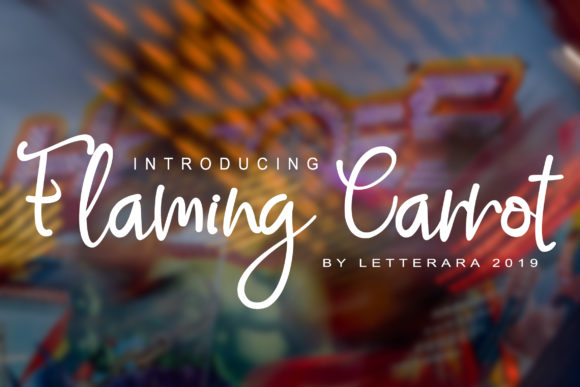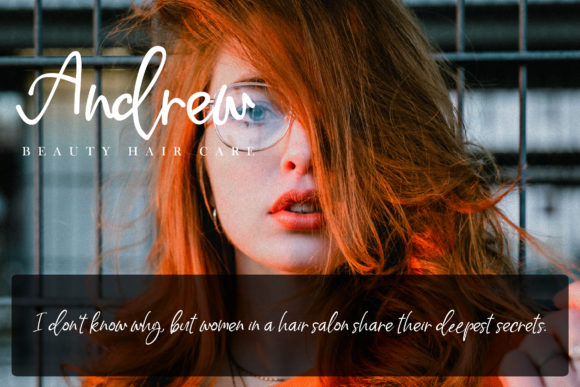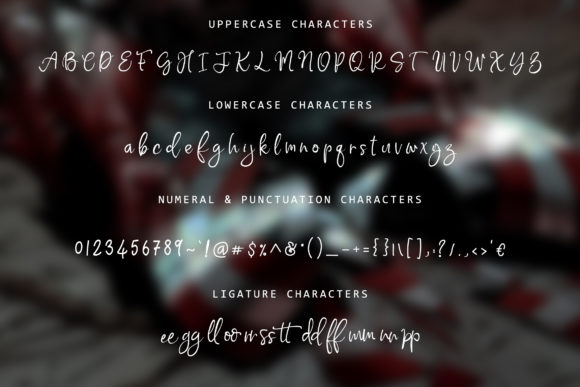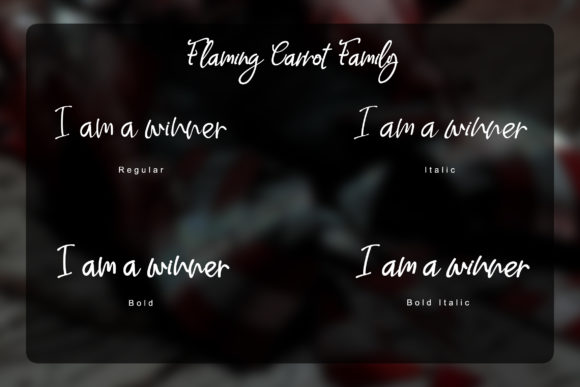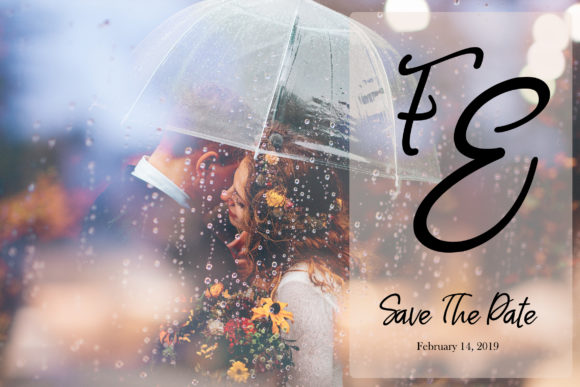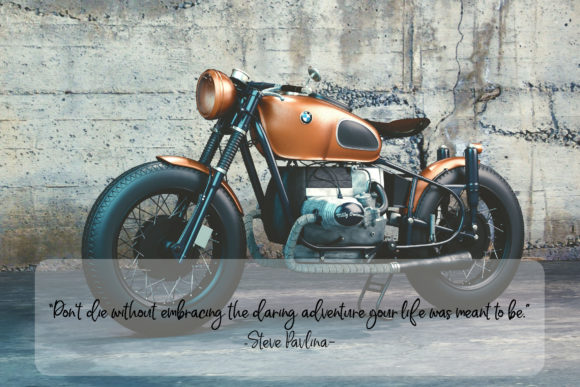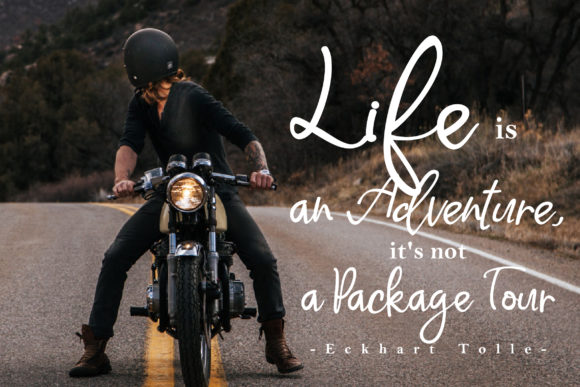
Flaming Carrot Font
About Flaming Carrot Font
The Flaming Carrot is a modern calligraphy font with a natural handwritten style. It’s the evolution of the adventure dreamer font
It’s perfect for adding a natural touch to your invitations, greeting cards, posters, name cards, quotes, blog headers, branding, logos, fashion, apparel, letter, stationery and more!